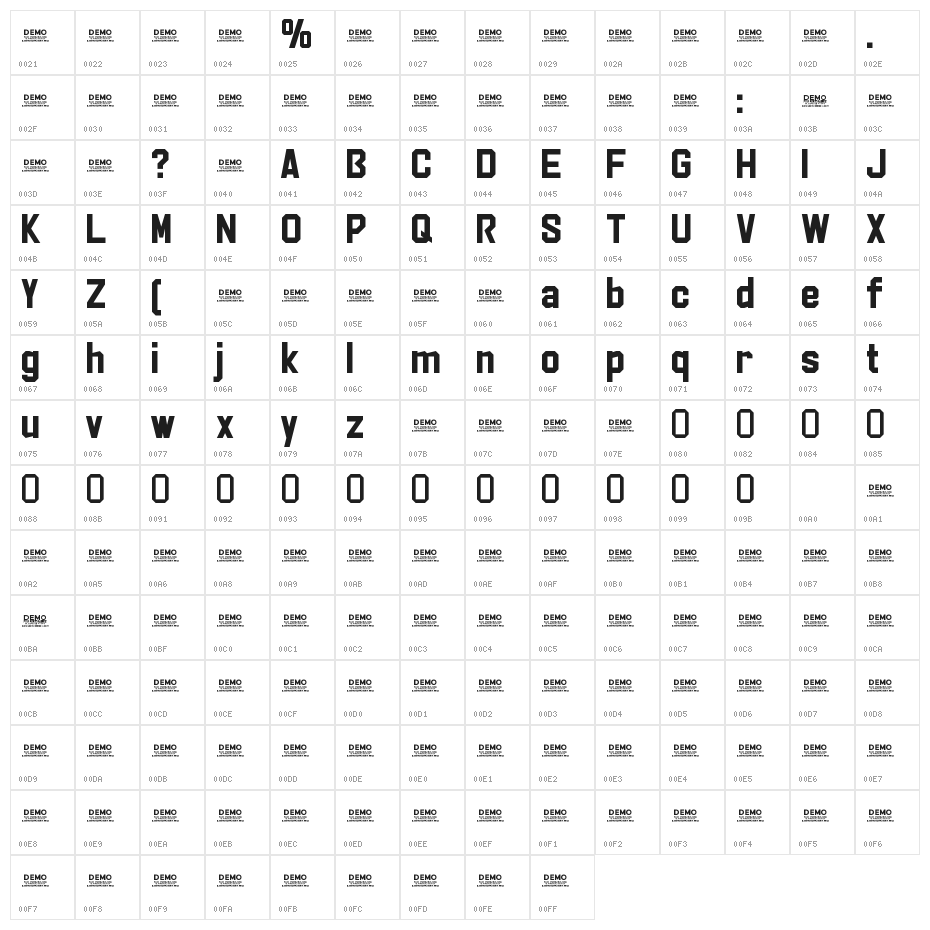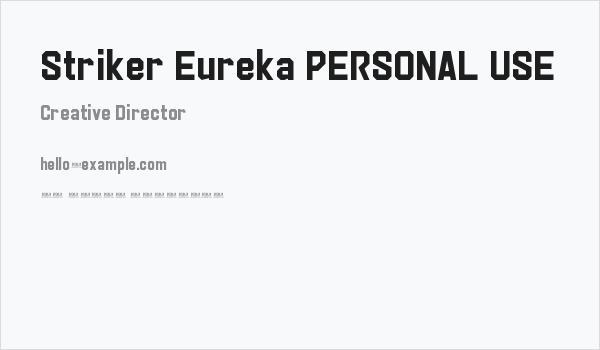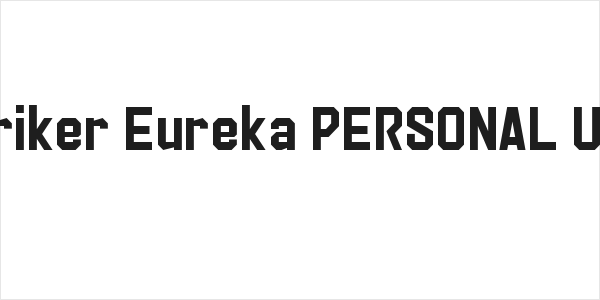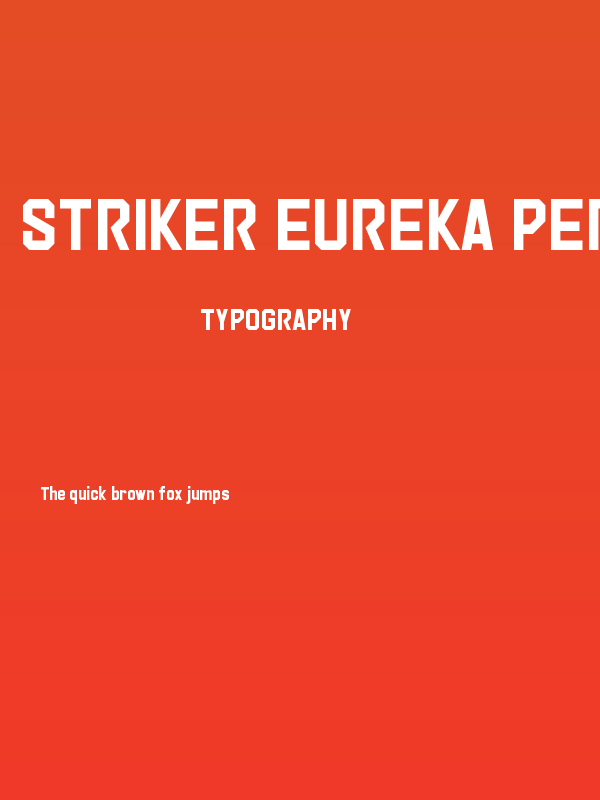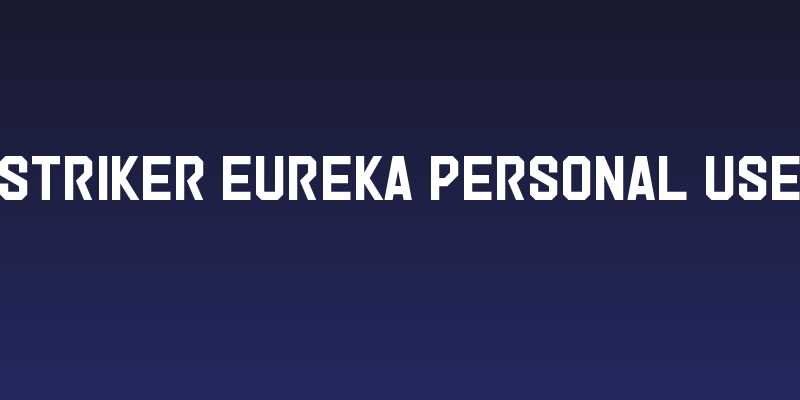
Striker Eureka PERSONAL USE Font
Striker Eureka PERSONAL USE Description
This font features a bold and geometric design with strong, angular lines that give it a modern and industrial feel. The uppercase letters are particularly striking, with a blocky appearance that commands attention. The lowercase letters maintain the same geometric style, ensuring consistency throughout. The numbers and special characters are designed to match the boldness of the alphabet, making them suitable for impactful displays. The overall style is reminiscent of digital or futuristic themes, making it ideal for projects that require a strong visual presence.
| Proposed Projects | Ideal for branding, posters, headlines, and any project requiring a strong, modern aesthetic. |